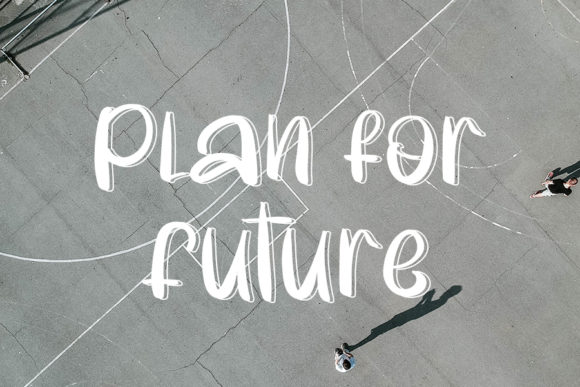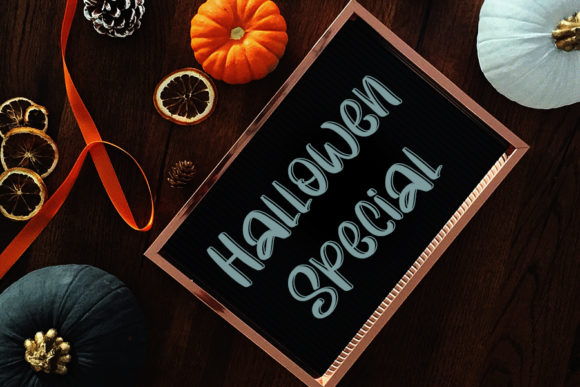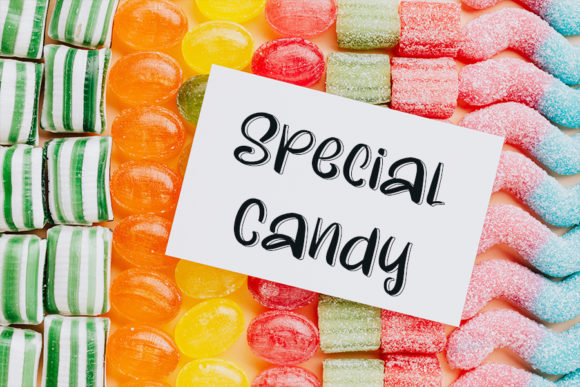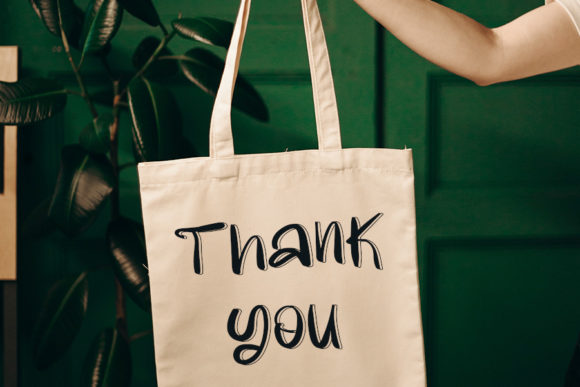
Works Planing Font
About Works Planing Font
Works Planing is a cute and lovely font. This original look will appeal to a wide range of crafty ideas, from letterheads and titles, to stationery.